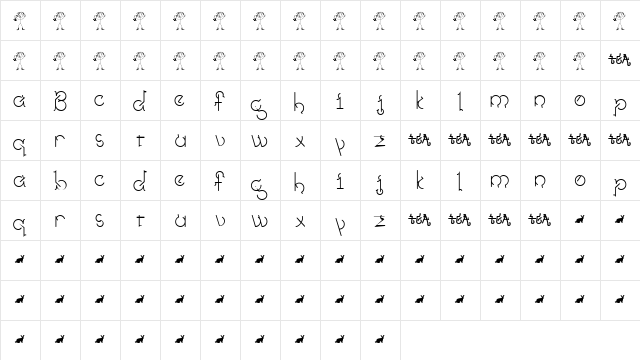
skeemat Regular
Design Context for skeemat Typeface
skeemat is a composed and adaptable typeface that performs quietly and consistently across a wide range of design contexts.